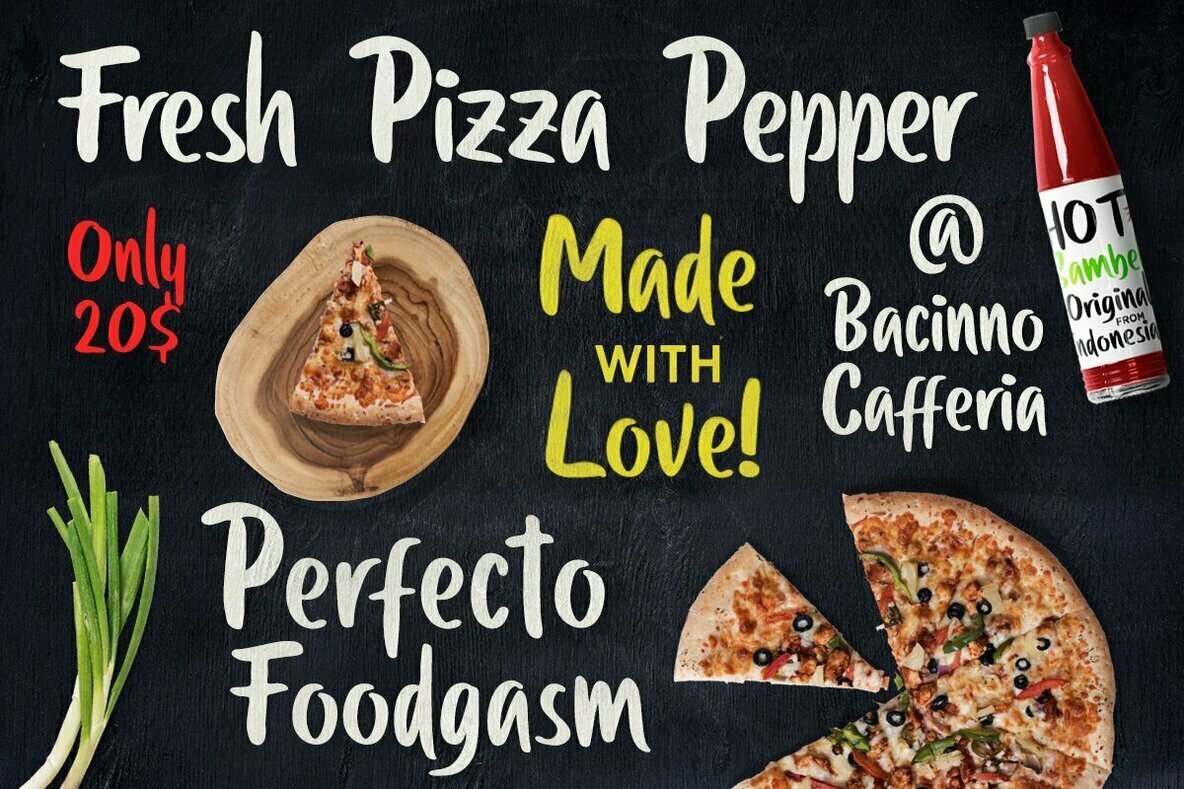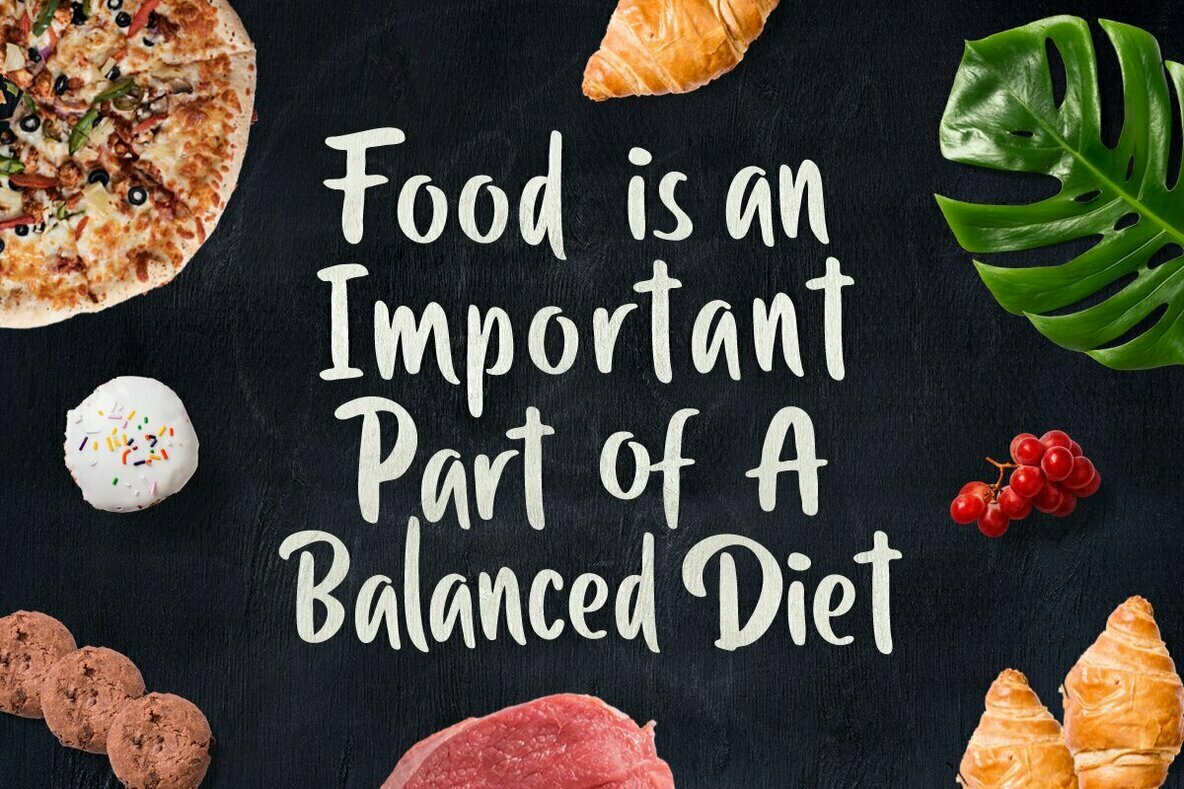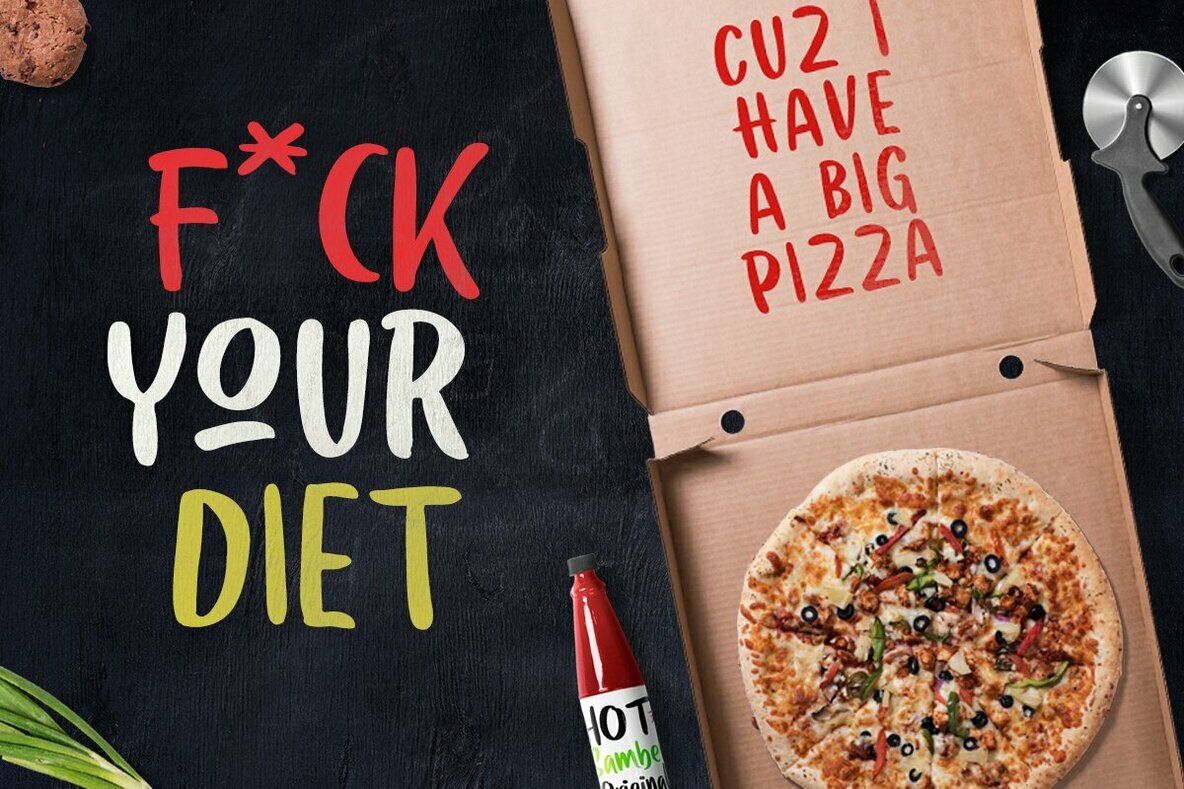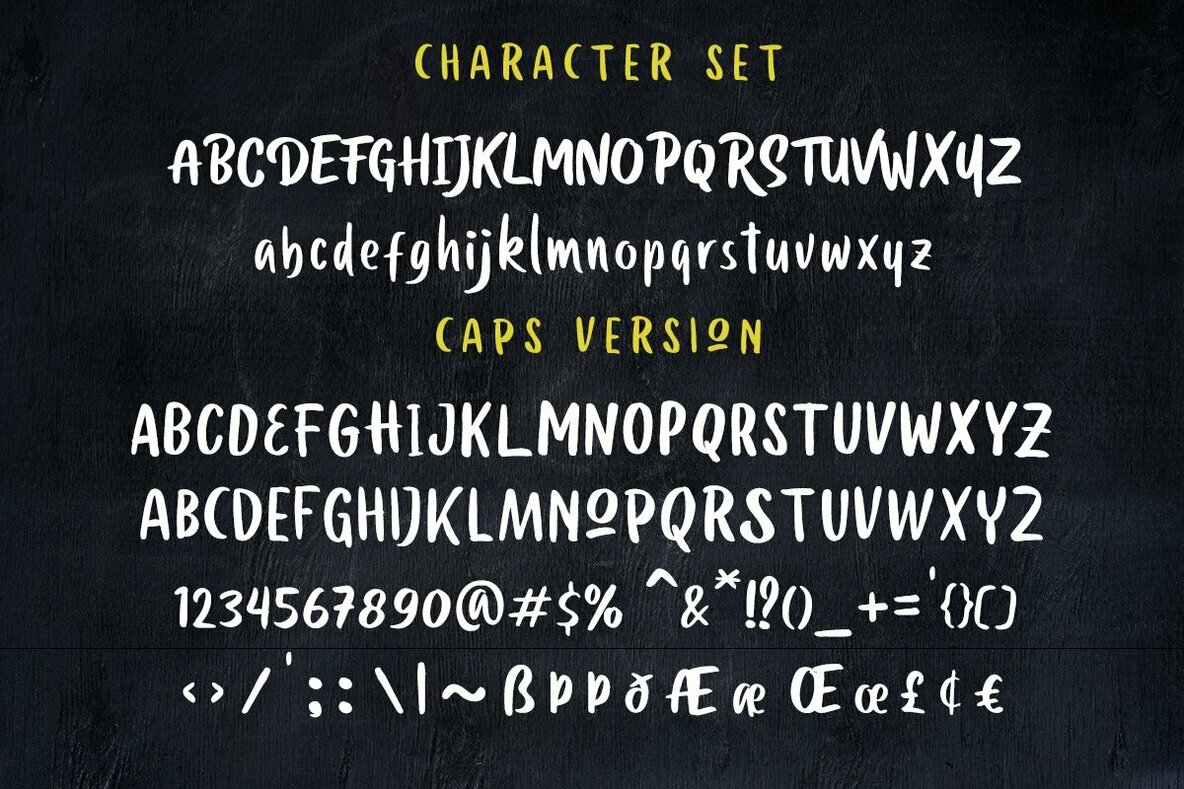
Anglice Font
Anglice
Delve into the enchanting world of Anglice, a sans serif font that marries whimsical style with elegance. Ideal for those seeking a blend of creative freedom and polished aesthetics, Anglice redefines conventional typography with its unique flair.Anglice: A Whimsical Sans Serif Delight
Noteworthy Features